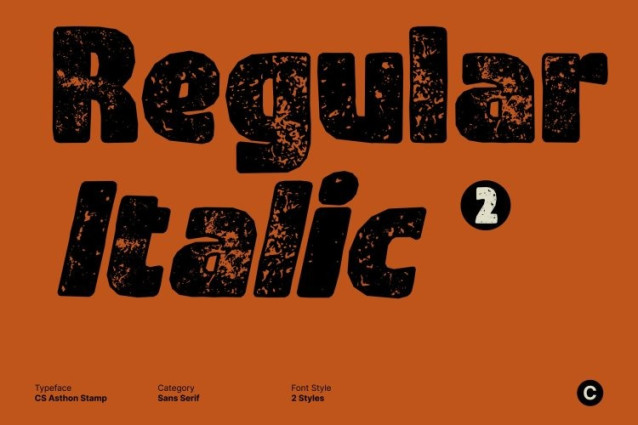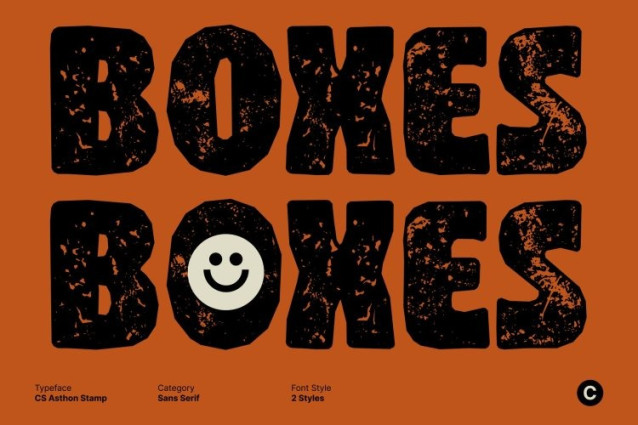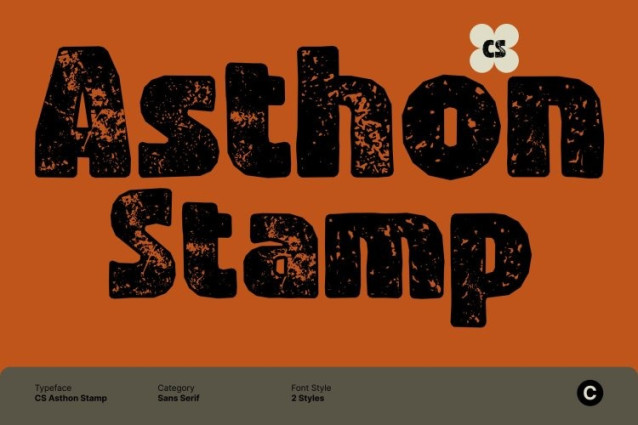
CS Asthon Stamp Font
CS Asthon Stamp Font This is a bold modern sans-serif font built on clean geometry and strong proportions. Its straightforward construction delivers a clear, confident visual voice perfect for designs that prioritize clarity, strength, and modern efficiency. The font stands firm without unnecessary decoration, allowing the message to take center stage.
Stamped Texture for Raw, Authentic Impact
The stamped style introduces a subtle roughness and uneven texture that adds character to its otherwise clean form. This textured finish softens the rigidity of the geometry, giving the font an authentic, tactile feel. The result is a balance between modern precision and raw visual energy ideal for designs that need to feel bold, real, and grounded.
Modern Versatility Across Digital and Print Media
This font adapts seamlessly across digital and print applications. From technology branding and startup identities to posters, packaging, and website headers, it delivers a modern aesthetic that remains eye-catching and legible at any scale.
Designed for Bold Headlines and Strong Branding
Whether used for headlines, logos, labels, or promotional graphics, this font offers visual efficiency and consistency. Its clean sans-serif foundation combined with the stamped texture makes it a versatile choice for designers seeking a modern font with attitude strong, direct, and confidently expressive.